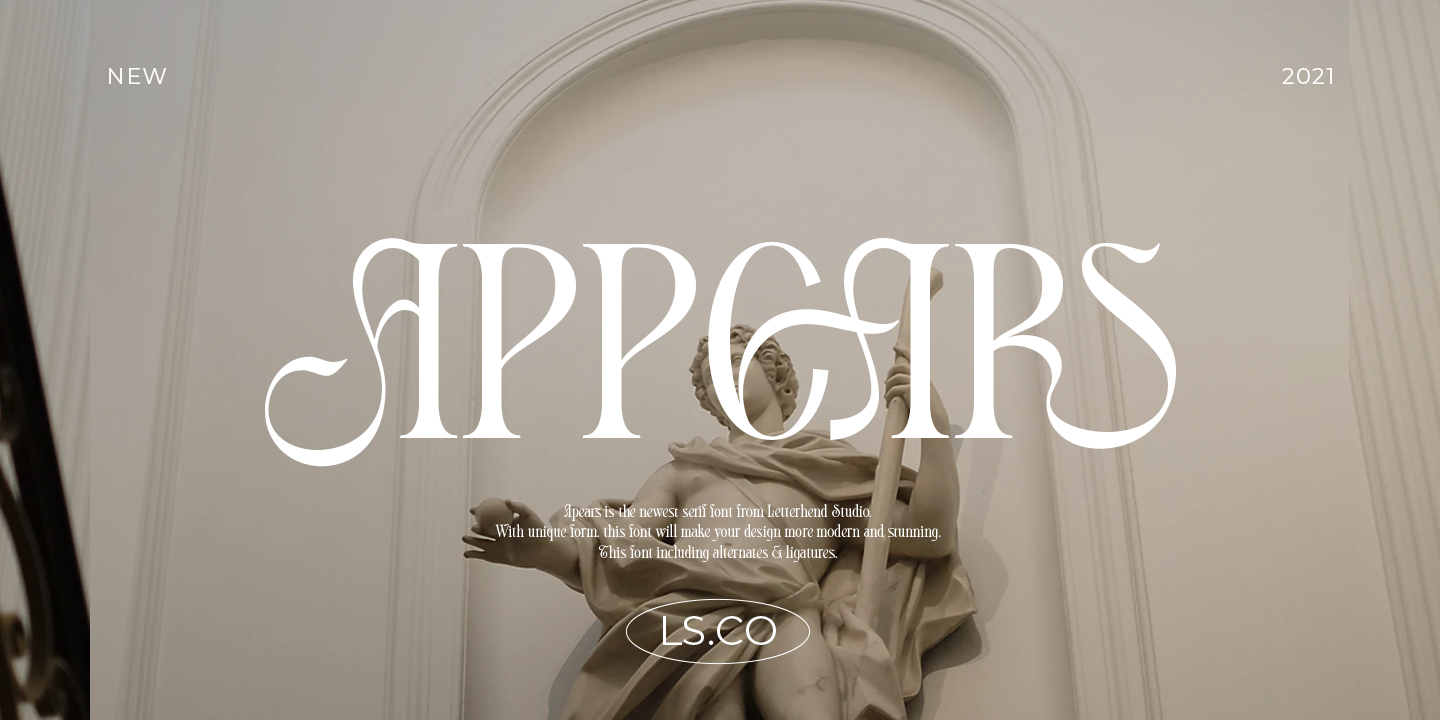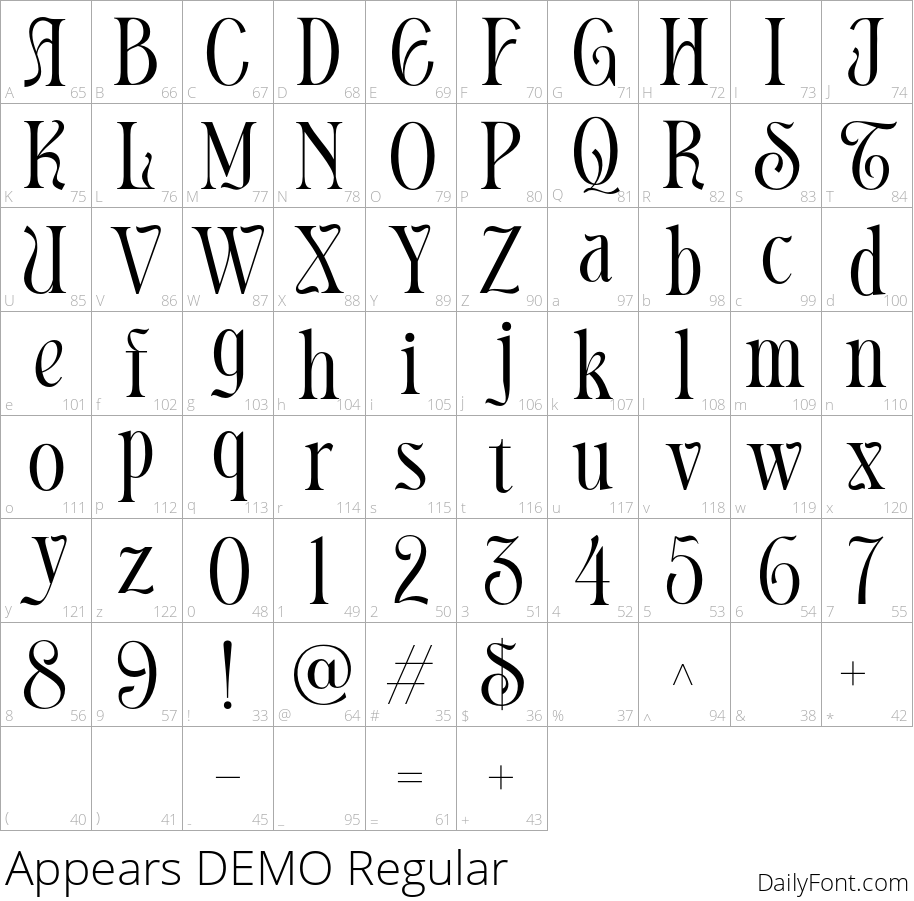
Appears
Introducing Appears, a stunning Display Serif Font designed to elevate your modern and minimalistic design projects. Featuring neat and sleek letterforms, this font exudes elegance and sophistication, making it a perfect choice for a variety of formal applications. Its stylistic alternates and ligatures enhance its uniqueness, ensuring that your designs stand out in a crowded marketplace.
Appears is ideal for use in logos, invitations, labels, magazines, books, greeting and wedding cards, packaging, and stationery. Whether you're in the fashion industry, looking to promote makeup products, or aiming to create captivating advertising materials, this font is your go-to solution. Make a lasting impression with Appears, and transform your creative visions into reality.